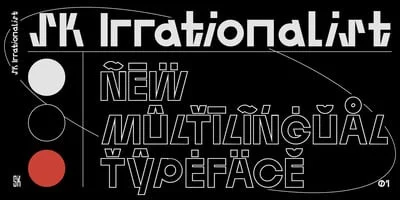
SK Irrationalist Font
SK Irrationalist Font is ideal for unconventional design projects including avant-garde art exhibitions, experimental music labels, abstract design studios, surrealist art galleries, creative expression workshops, non-conformist fashion brands, artistic rebellion themes, and boundary-pushing marketing campaigns. This provocative typeface works perfectly for experimental theater productions, abstract art museums, creative thinking consultancies, artistic innovation centers, and projects that challenge conventional design norms and celebrate creative nonconformity.
What makes SK Irrationalist Font exciting is its rebellious unconventional character that perfectly captures the essence of artistic chaos and creative liberation. The font features irregular letterforms with unpredictable styling that reflects the spontaneous energy and deliberate defiance of rational design principles. Its anarchic design elements embody the spirit of creative rebellion and artistic freedom, making it perfect for projects that need to convey innovation, nonconformity, and connection to avant-garde movements. The carefully crafted irrational details create an atmosphere of creative chaos and artistic authenticity.
SK Irrationalist Font comes in multiple family variations including chaotic, rebellious, abstract, and experimental styles. Each weight maintains the distinctive unconventional character while offering different levels of artistic intensity and creative presence. The font family includes anarchic alternates, rebellious ligatures, and experimental variations that provide designers with comprehensive options for creating truly provocative and authentically nonconformist typographic compositions that challenge design conventions.